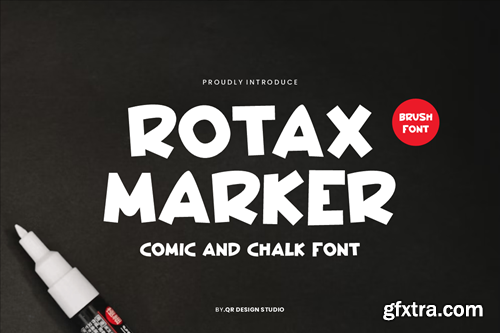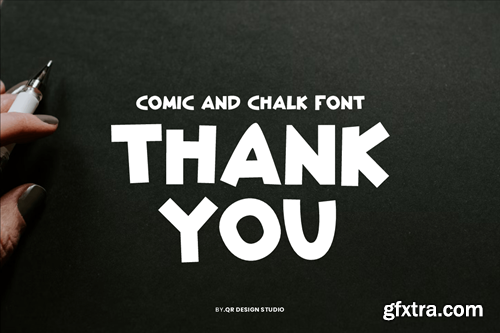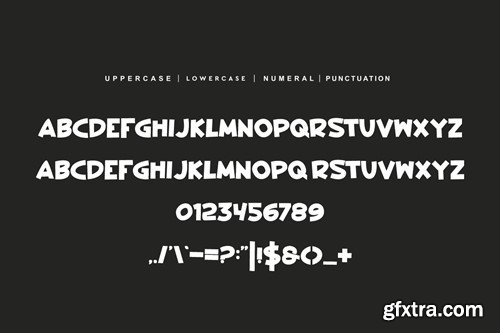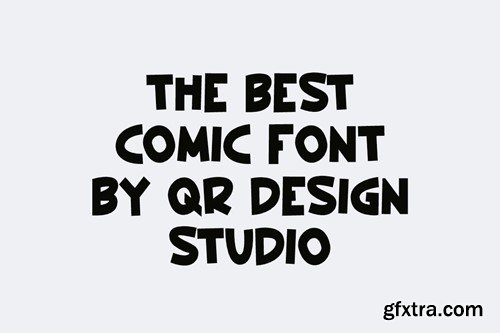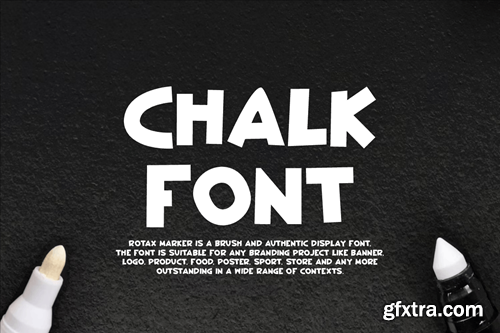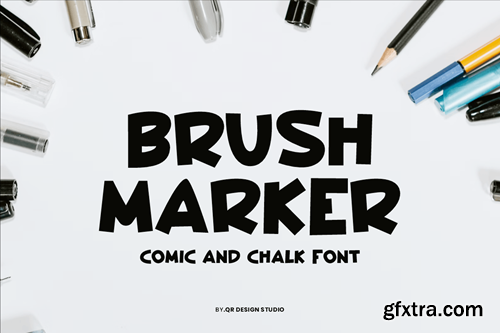
Rotax Marker - Comic & Chalk Font EJJGFER
Rotax Marker - Comic & Chalk Font
Rotax Marker Font is a Hand Drawn and authentic display font. The font is suitable for any branding project like poster, kids, logo, sport, and many more. Outstanding in a wide range of contexts. Included